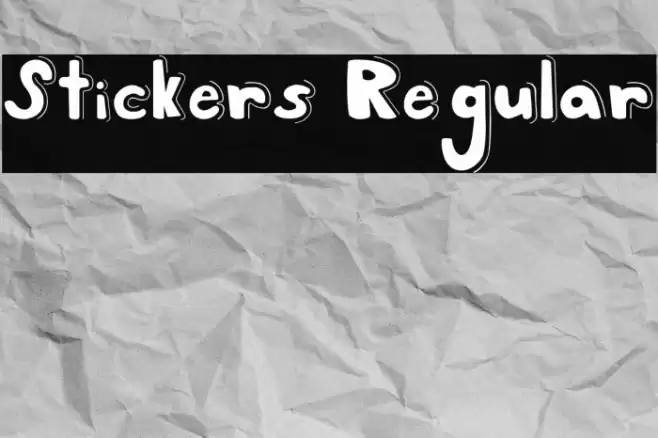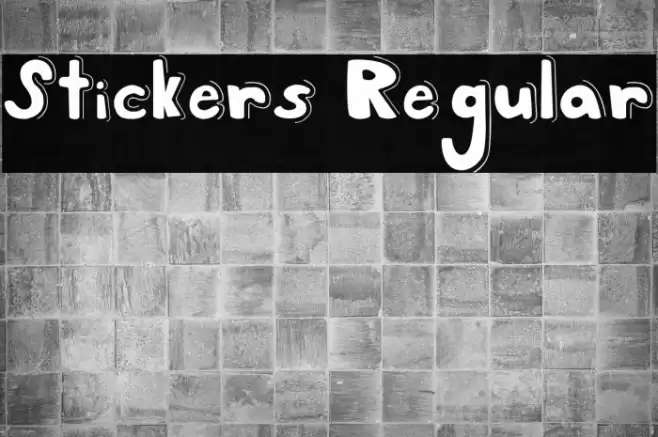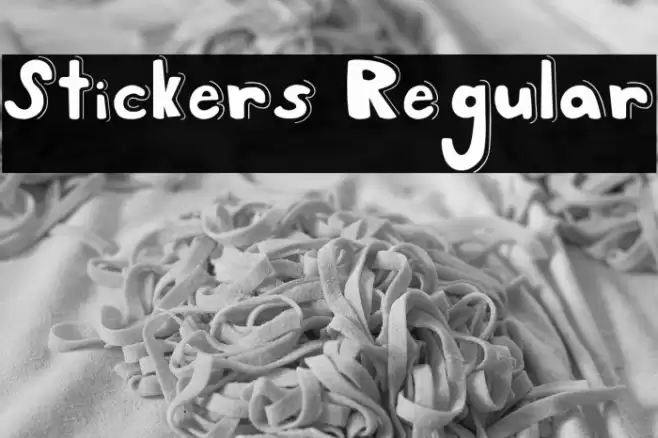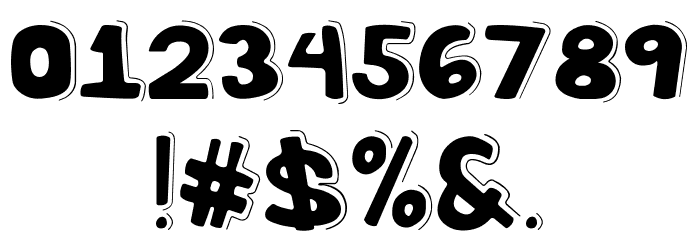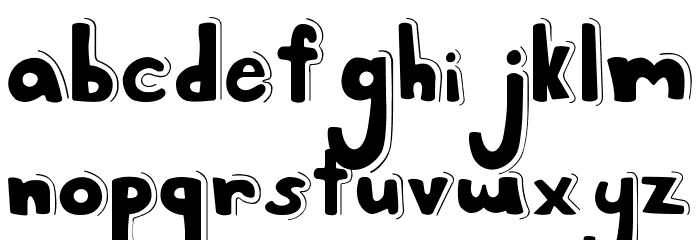
Stickers Regular Font
Stickers Regular Description
This playful and bold font features a unique, hand-drawn style with a shadow effect that gives it a three-dimensional appearance. The characters are rounded and slightly irregular, adding a whimsical and informal touch. The uppercase and lowercase letters maintain a consistent style, with the lowercase letters being slightly more compact. The numerals and special characters follow the same playful design, making the font suitable for creative and fun projects. The overall look is eye-catching and engaging, perfect for grabbing attention.
A playful, bold font with a hand-drawn, three-dimensional style from Uncategorized fonts.
- Proposed Projects: Ideal for children's books, playful branding, posters, and creative social media graphics.
- Overall Style: Playful, Whimsical